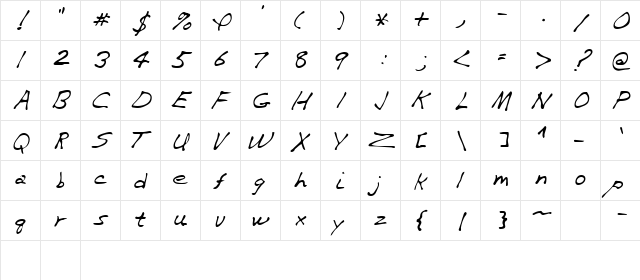
Vaughn Regular Font Preview
Vaughn Regular
Vaughn Regular Font Details
Design Context for Vaughn Typeface
Vaughn is a composed and adaptable typeface that performs quietly and consistently across a wide range of design contexts.